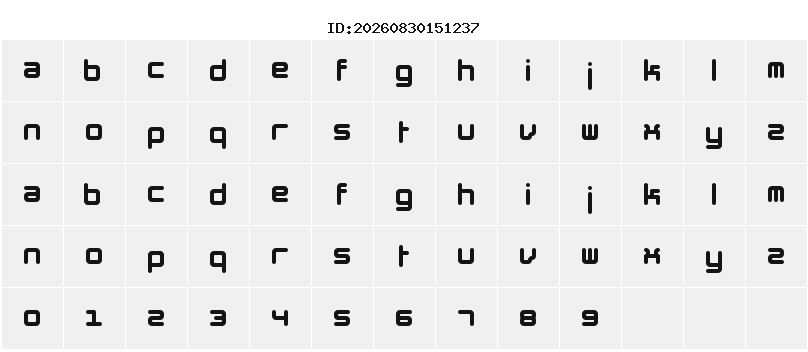
• Font Name: The Hummel Font
• Designer: 1saac
• Description: ‚ÄúThe Hummel Font‚Äù was built with FontStruct
About The Hummel Font.ttf
The Hummel Font.ttf is a modern, elegant sans-serif font designed for ultimate readability and visual harmony. Perfect for branding, headlines, web design, and print materials.